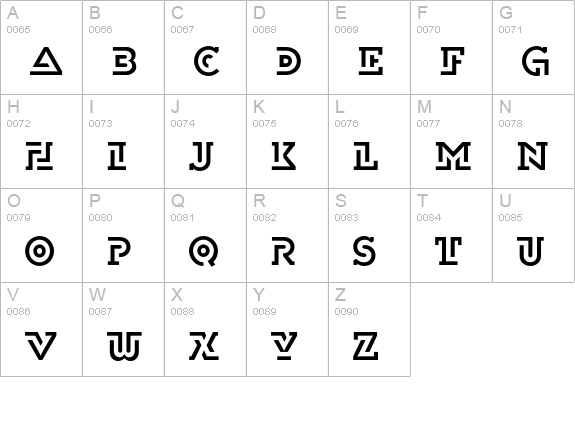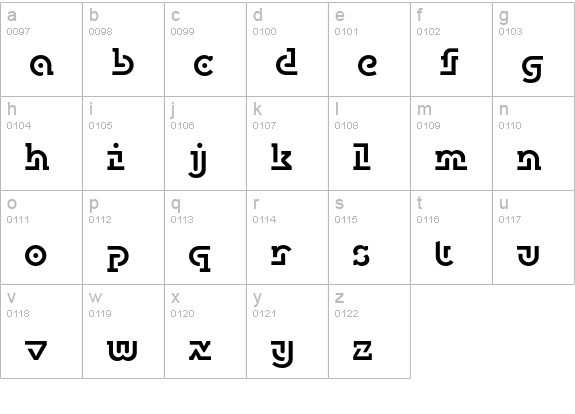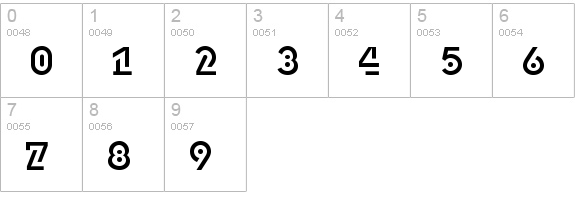
PT DublonBrus Cyrillic Font Details
PT DublonBrus Cyrillic font is a stunning typeface that combines traditional Cyrillic characters with a modern twist. Its elegant design and unique style make it a perfect choice for a wide range of design projects, from branding to editorial layouts. This font is not only visually appealing but also highly versatile, making it suitable for both digital and print applications. With its clean lines and attention to detail, PT DublonBrus Cyrillic font is sure to make your text stand out and leave a lasting impression on your audience. Best of all, PT DublonBrus Cyrillic font is available for free download at FontsMarket.com, allowing you to access this beautiful typeface without any cost. Don't miss out on this opportunity to enhance your designs with the elegance and sophistication of PT DublonBrus Cyrillic font.